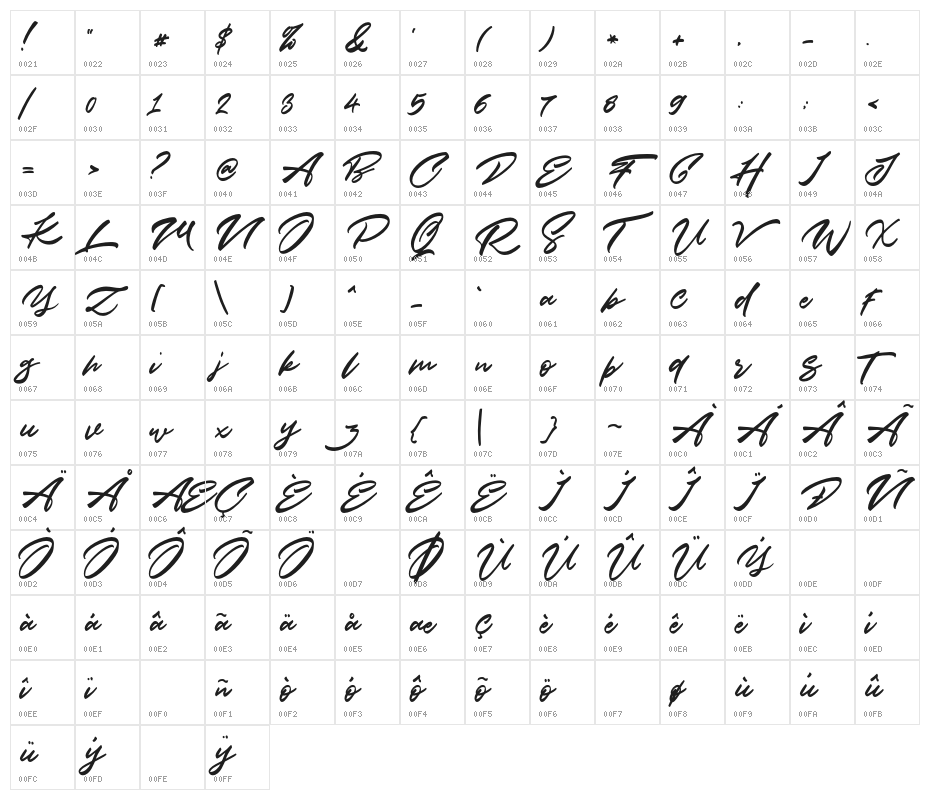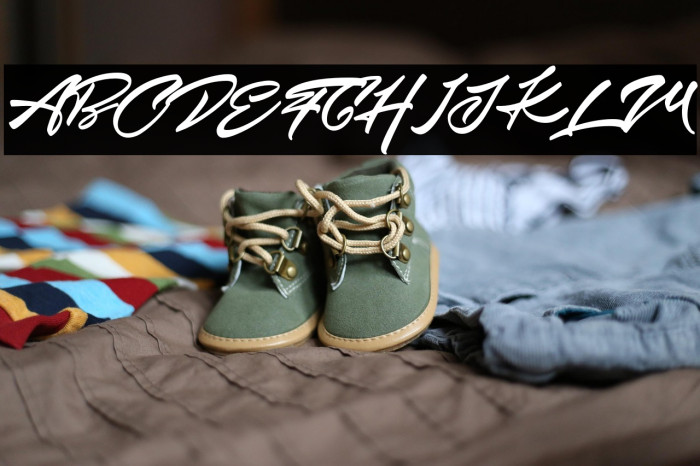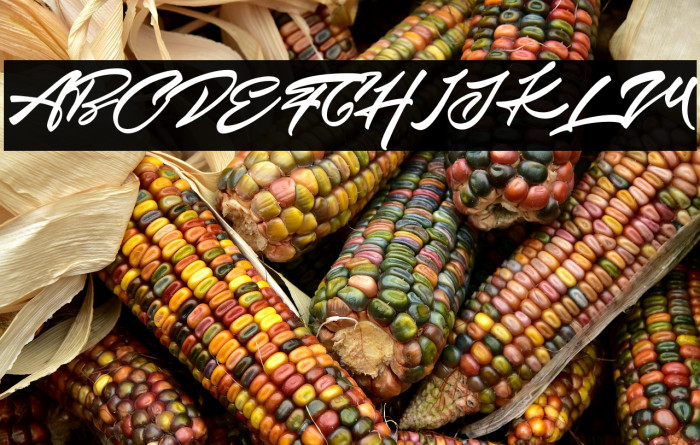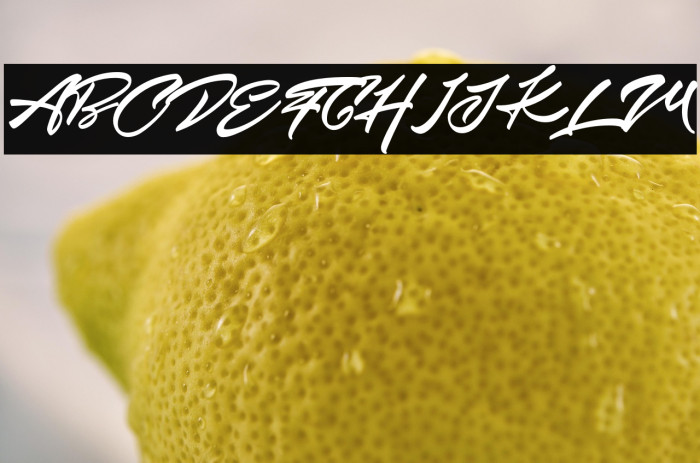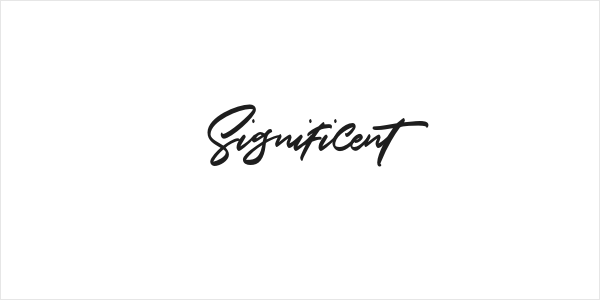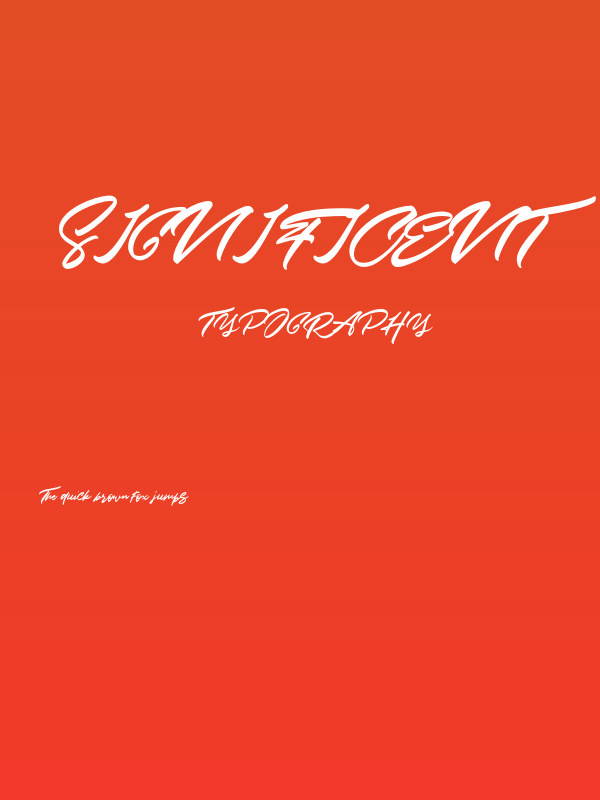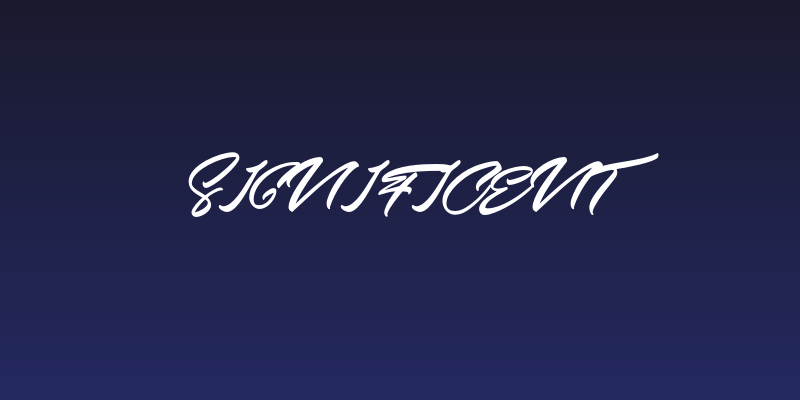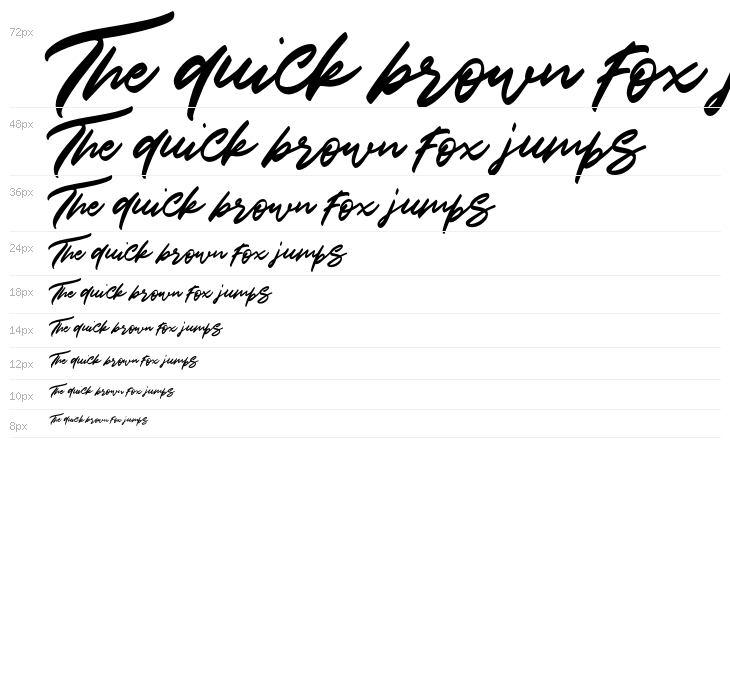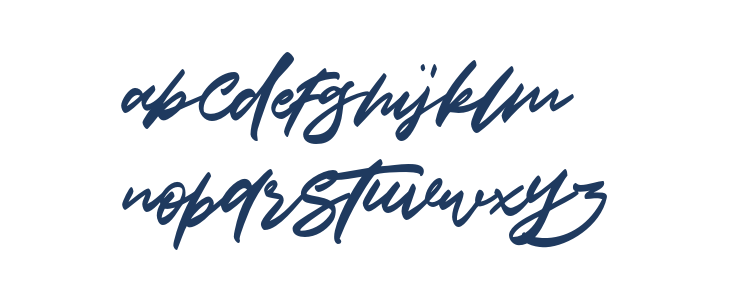
Significent Font
Significent Description
This font features a dynamic and expressive script style, characterized by its fluid, cursive strokes and bold presence. The letters are interconnected, creating a sense of movement and elegance. The uppercase letters are slightly more elaborate, with sweeping curves and flourishes, while the lowercase letters maintain a consistent flow. The numbers and special characters complement the overall style with similar bold and cursive characteristics. This font exudes a sense of creativity and personal touch, making it ideal for projects that require a handwritten or artistic feel.
| Use Case | Logos, Invitations, Artistic projects |
| Proposed Projects | Ideal for wedding invitations, greeting cards, branding, and artistic projects. |